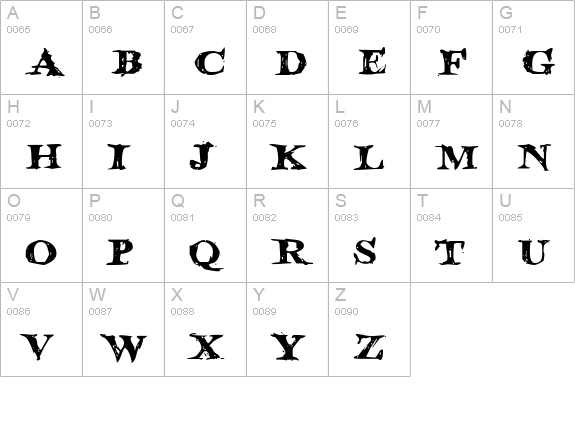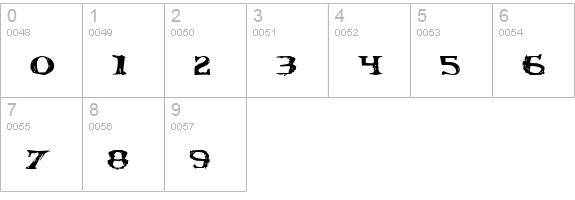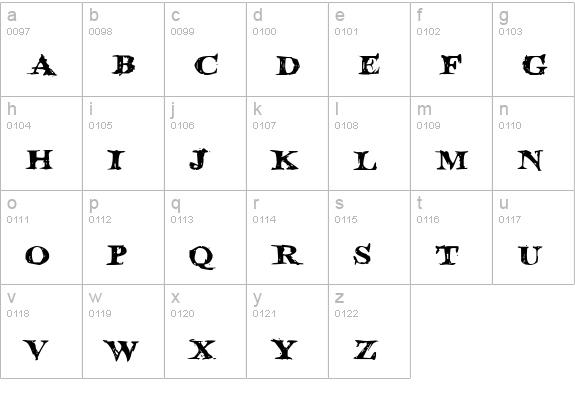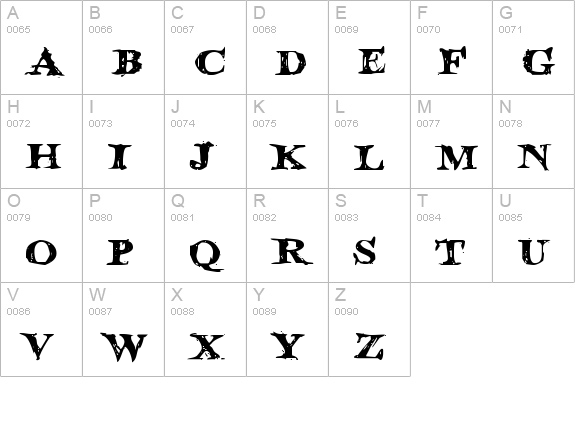
Blood Crow Expanded is a distinctive, extended-width variant in the Blood typeface family \xE2\x80\x94 well suited to design and typography projects.
Blood Crow Expanded font is a striking and bold display typeface that commands attention with its unique design. Its sharp edges and intricate details give it a fierce and powerful appearance, making it perfect for projects that need a strong and impactful look. With its expanded characters and slightly distressed texture, this font exudes a sense of mystery and intrigue, adding depth and character to any design. What's even better is that Blood Crow Expanded font is available for free download at FontsMarket.com. Whether you're working on a poster, logo, or any other creative project, this font is sure to make a statement and leave a lasting impression. Download it now and unleash the power of Blood Crow Expanded in your designs.